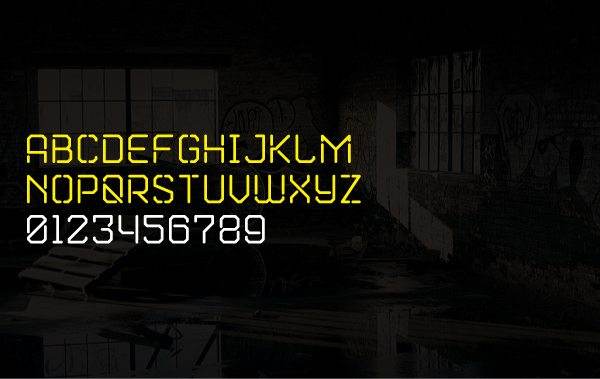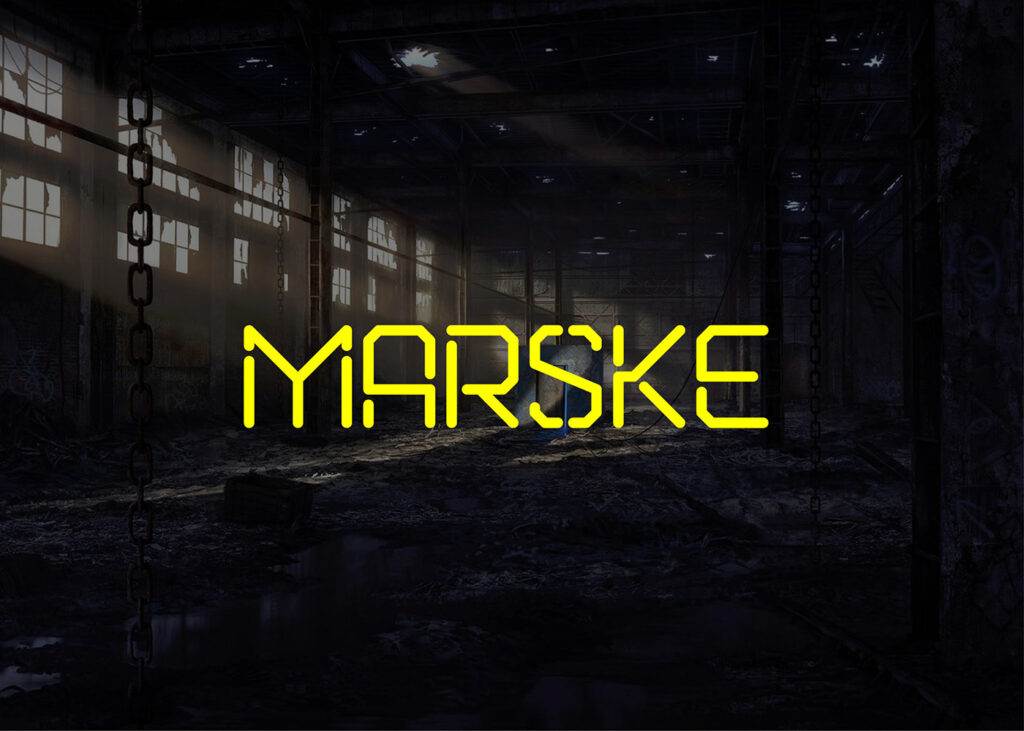
Marske is an all caps free stencil display font. The original font and style was designed by Kash Singh. and Sergiy Tkachenko created the Russian, Ukrainian and Belarusian Cyrillic style.